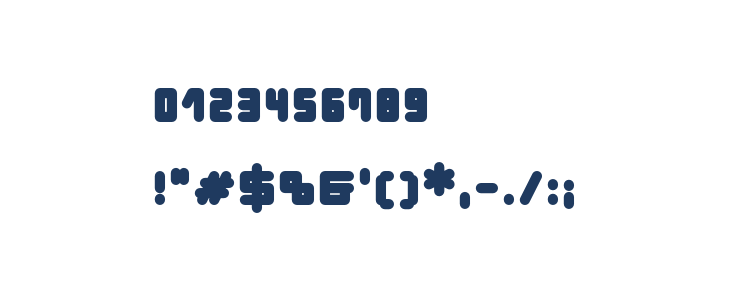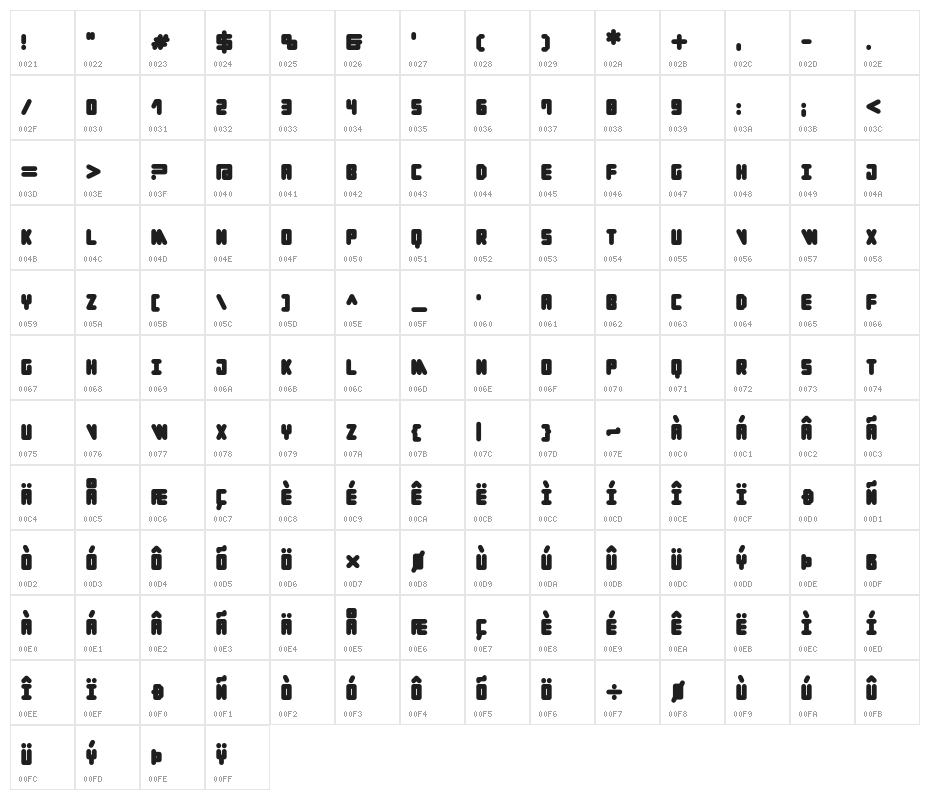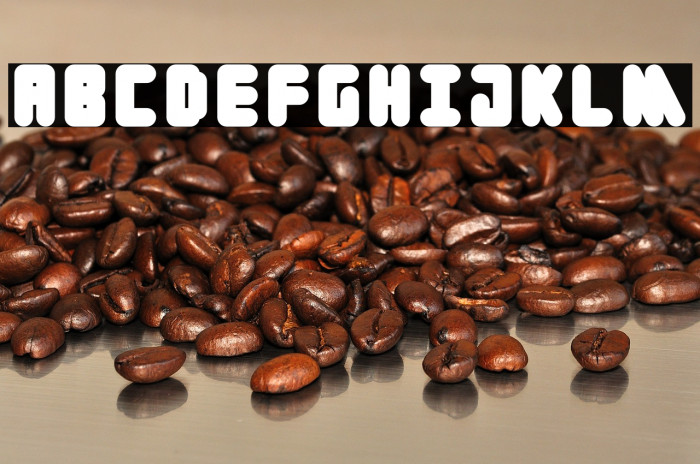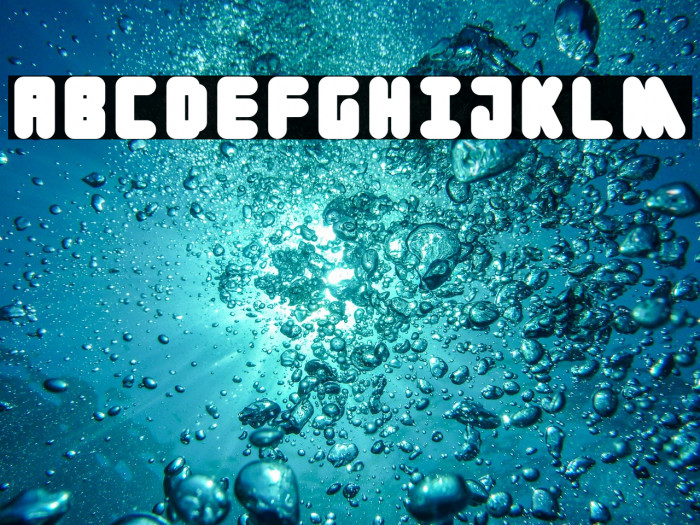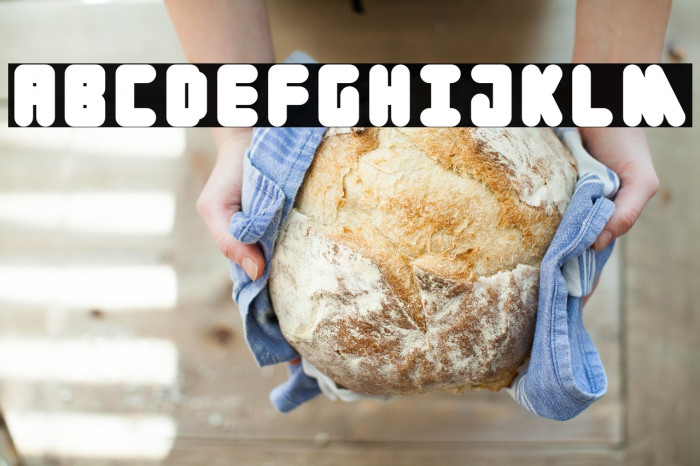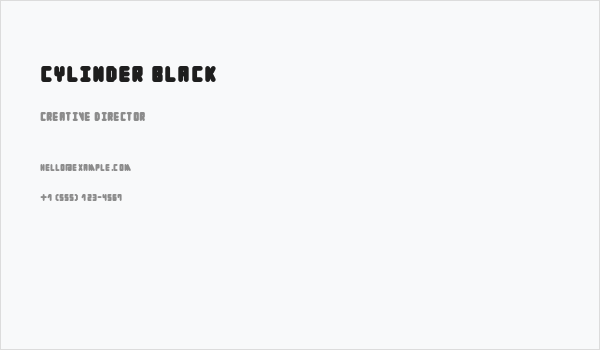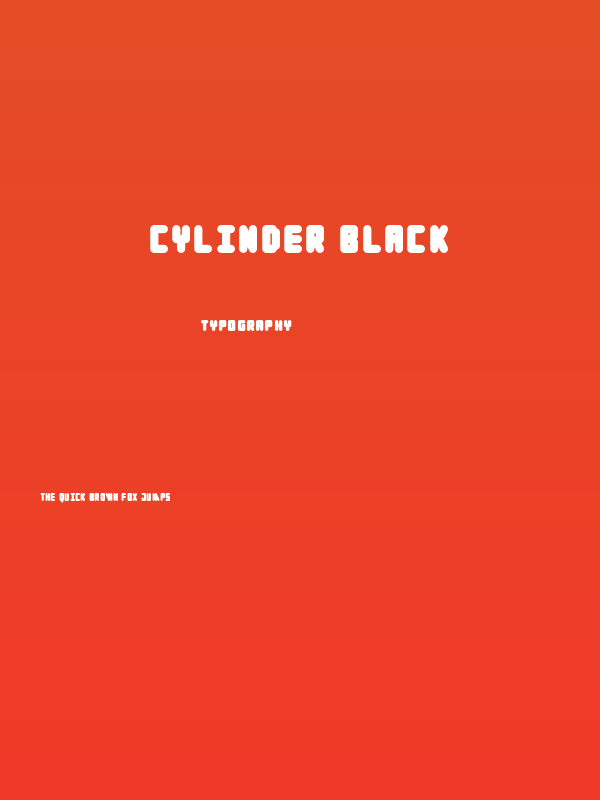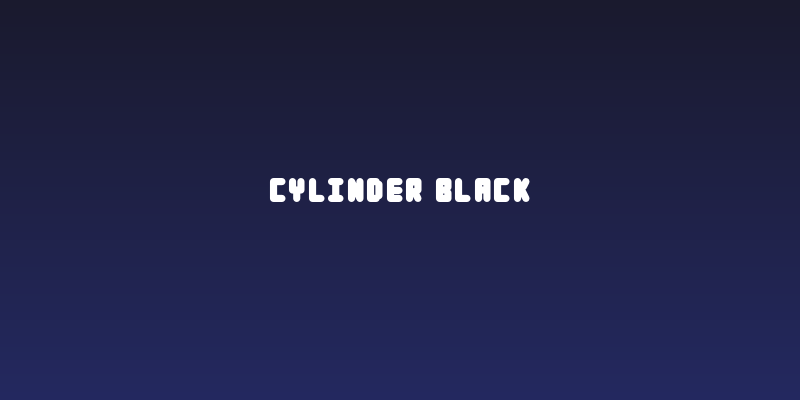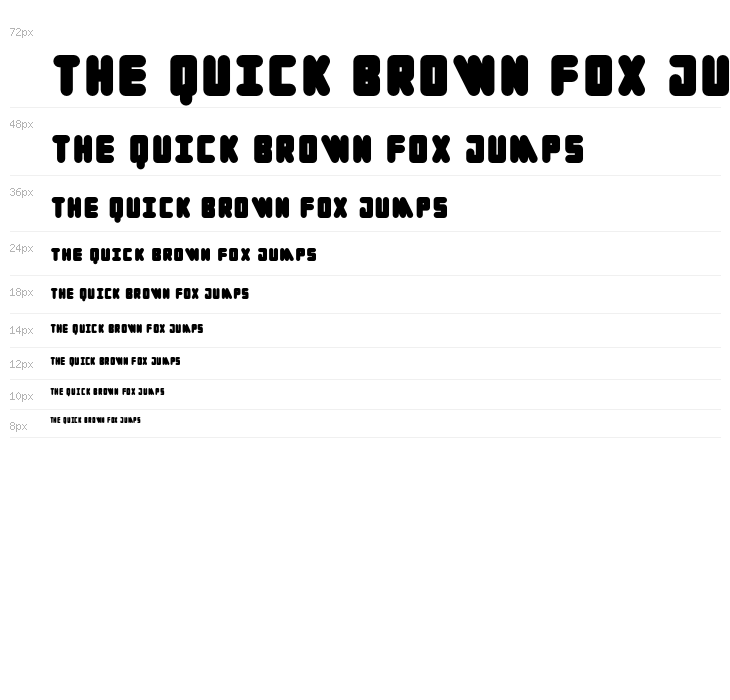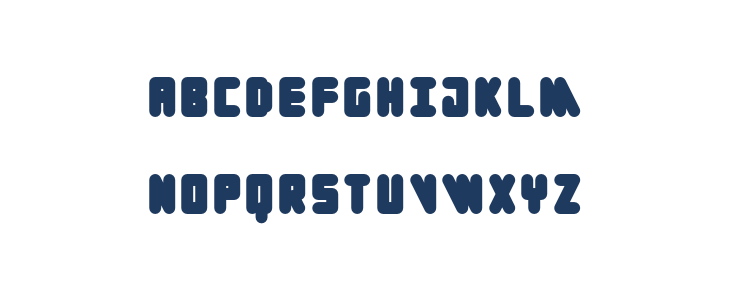
Cylinder Black Font
Cylinder Black Description
This font features a bold and rounded style with a distinct geometric influence. The characters are uniformly thick, creating a strong visual impact. The rounded edges and consistent stroke width give it a playful yet robust appearance. Each letter is crafted with precision, maintaining a uniform height and width, which contributes to its cohesive look. The numbers and special characters follow the same design principles, ensuring a harmonious overall aesthetic. This font is ideal for projects that require a bold statement, combining modern design with a touch of whimsy.
Proposed ProjectsIdeal for branding, poster design, children's books, and playful advertising campaigns.